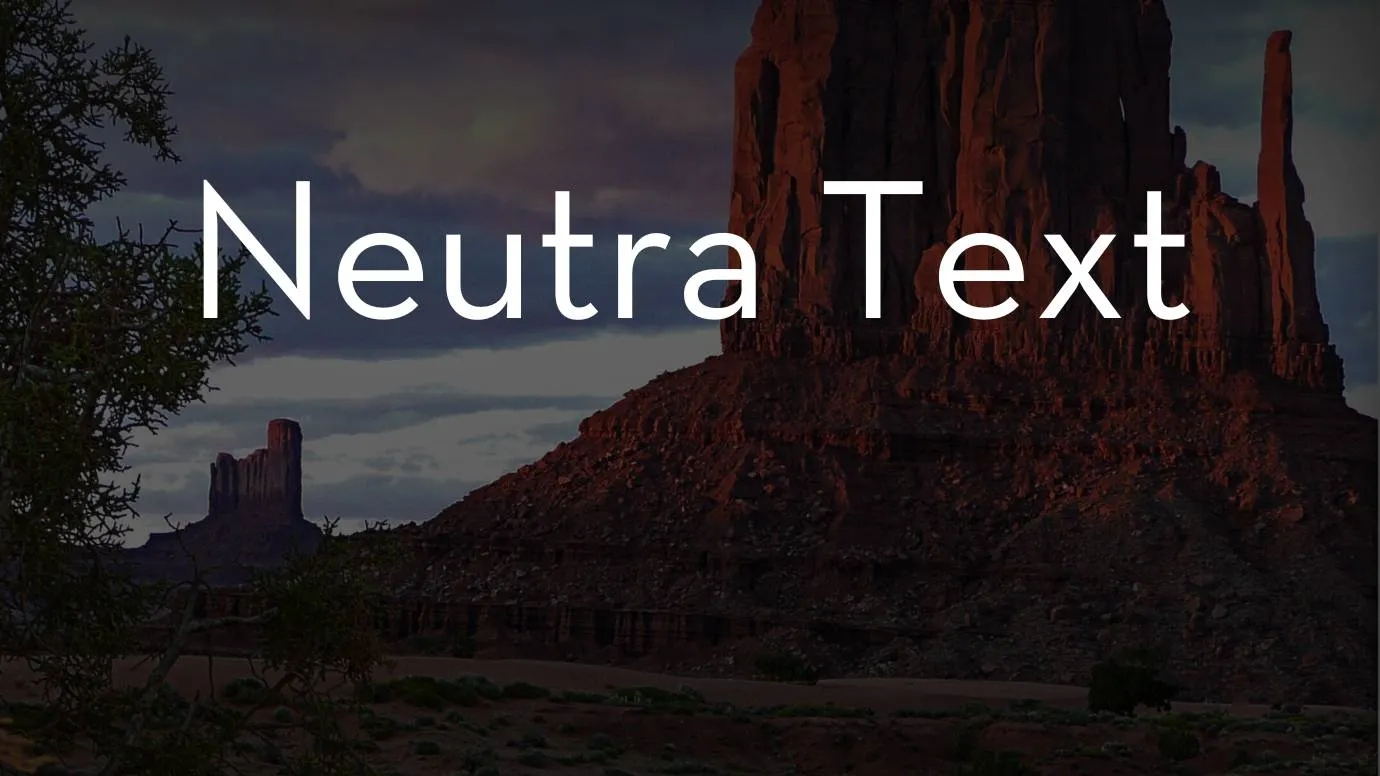
Neutra Text is a Sans-Serif font that was designed in the year 2002 by two font designers named Richard Neutra and Christian Schwarts. This typeface is published by American Typeface Foundry.
Neutra Text Font Family
DesignerChristian Schwartz